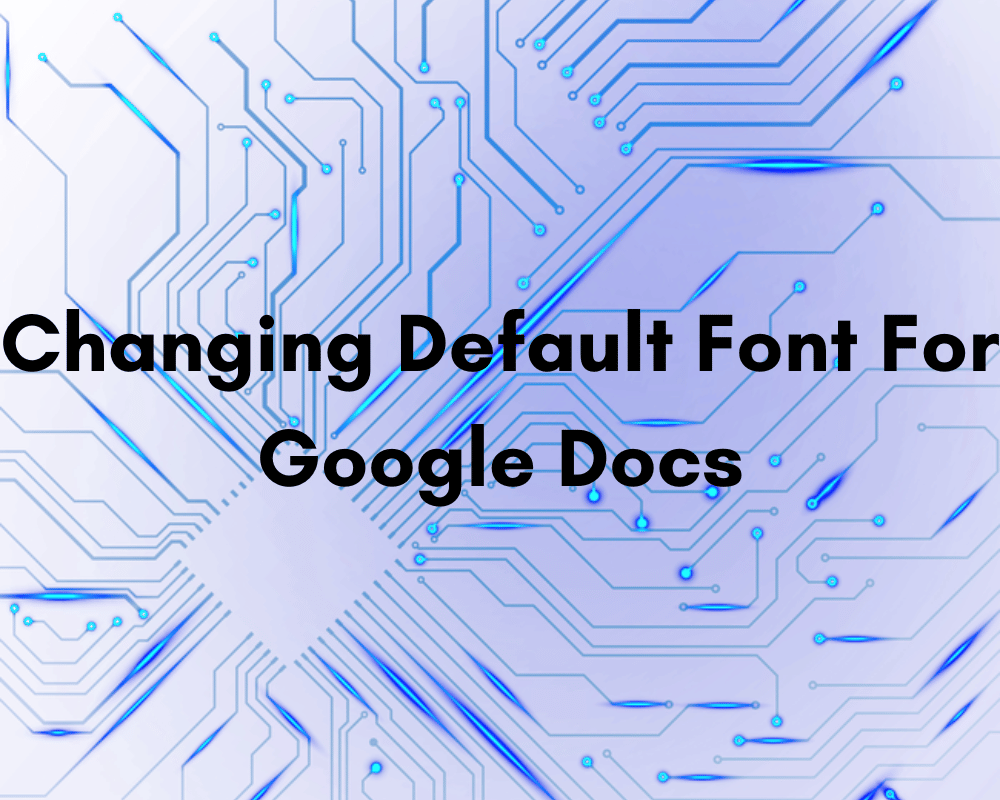
Changing Default Font For Google Docs
Do you have a preferred font that you use for all documents? If you do, switching from Arial size 11 to Arial size 12 every time you start a new google docs document might be quite inconvenient but you can resolve the issue in a few clicks.
Google Docs is a popular word-processing program that is used by consumers and businesses all around the world. While Google Docs provides a variety of font styles and sizes, you may discover that the normal text option does not meet your needs or preferences. Changing the default font in Google Documents can help you save time and improve your writing experience overall.
This article will take you step by step through the process of changing the default font in Google Documents. This article will help you personalize your papers to match your needs, whether you want a more professional style, better readability, or simply a change of pace.
Why Should You Change Default Font in Google Docs?
There are many advantages to changing Google Documents’ default style.
• First off, it can assist you in producing a document that has a more classy look and is consistent with your personal or company branding.
• Second, altering the font might make your text easier to read for both you and your audience by increasing readability and accessibility.
• Lastly, it enables you to communicate your distinct style and preferences, which can give your work a more personal touch.
Finally, using a different font as the default might save you time by preventing the need to manually change the font each time a new document is opened.
How to Change the Default Font in Google Docs: A Step-by-step Guide
Changing the Font for a Single Document
The steps below can be used to change the font for just one document in Google Docs:
1. Open the Google Documents file where the font has to be changed.
2. To select all of the text in the document, click Edit text box and “Select All,” or simply highlight the text you wish to change the font of.
3. At the top toolbar, select a font from the drop-down menu. This shows the current font and is situated next to the font size menu.
4. You can either use the search bar to enter the font name or scroll through the available selections in the font menu. Click on the desired font when you’ve located it.
5. The new font style should now be added to the selected text.
You can highlight only the text you wish to alter and then follow the same instructions if you only want to change the font for a portion of the page. A similar technique can be used to modify the font’s color and size.
It’s crucial to understand that changing the default font for one document will not affect all subsequent ones.
Changing the Font for All Future Documents
The steps below can be used to alter the Google Docs’ new default font for all upcoming documents:
1. Launch your document.
2. Choose some normal text.
3. Choose your default font by clicking the Font button on the top of the window.
4. Choose Format.
5. Select paragraph styles from the list.
6. Click Update normal text to match after selecting Normal text.
7. Choose Format once more.
8. Choose from a variety of paragraph styles.
9. Choose Settings, then Save as my default styles and press enter to apply to all new sheets.
Also changing the default font style on a shared Google Documents account will impact all users on that account. Any modifications to the default font should be discussed with other users first.
Things to Consider While Selecting a Font in Google Docs
There are a few things to consider while selecting a font to ensure that you get the perfect one for your document:
• Evaluate the document’s purpose and tone: The font you choose should complement the document’s tone and purpose. A professional document, such as a legal contract, may necessitate a more classic serif font, whilst a creative endeavor may benefit from a more current sans-serif font.
• Consider readability: The typeface you select should be easy to read and should not create eye strain. Fonts with uncommon or complicated letterforms should be avoided because they can make the text difficult to understand.
• Consider the audience: If your paper is intended for a certain group, use a font that is suited for that group. For example, if you’re preparing a document for a children’s book, you might want to select a lively and easy-to-read font.
• Be consistent: When using various fonts in a document, use them consistently. Limit yourself to no more than two or three fonts and utilize them consistently throughout the document.